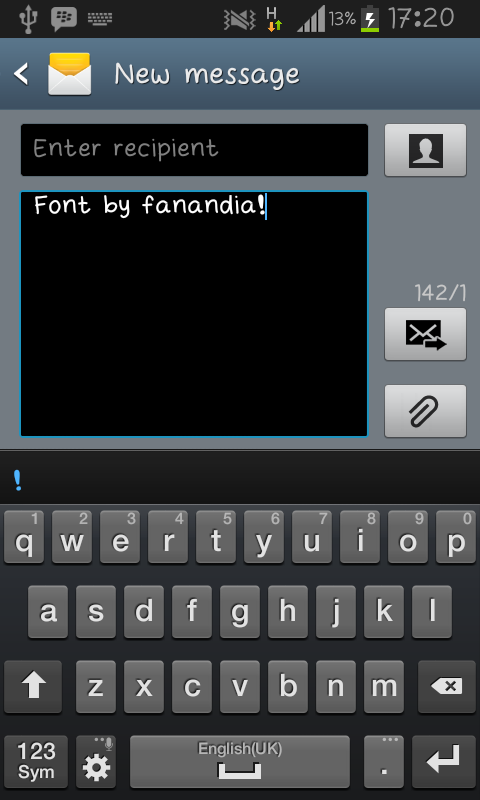
Preview and download Vania Font. Created by Fanandia Mochamad Adenansyah in Script Handwritten styles with Demo license.
Note by Fanandia Mochamad Adenansyah | |
This is the font, ispirate by my lil niece. Vania! |